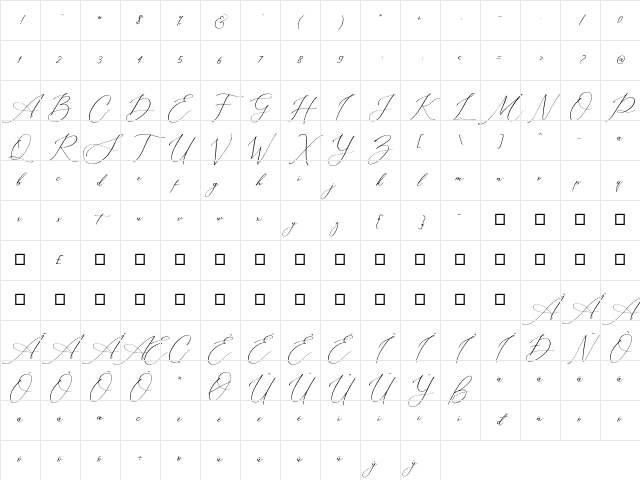
Muttaqin Demo Demo Free Font
Muttaqin Demo Demo
Designer: Hasan Jasman
Design Context for Muttaqin Demo
Muttaqin Demo is a composed and adaptable typeface that performs quietly and consistently across a wide range of design contexts.